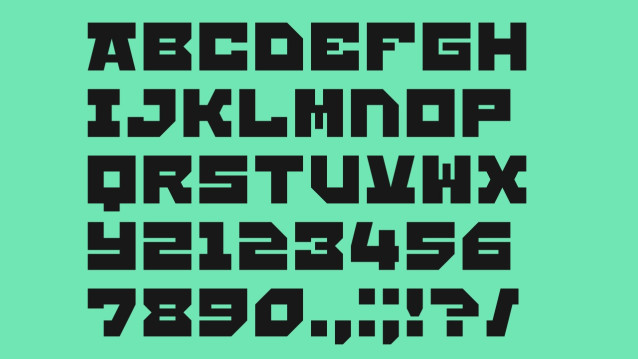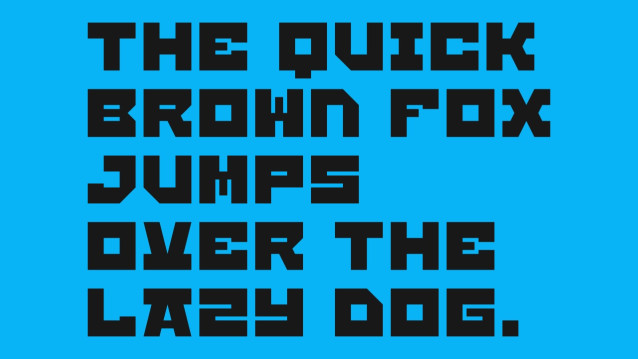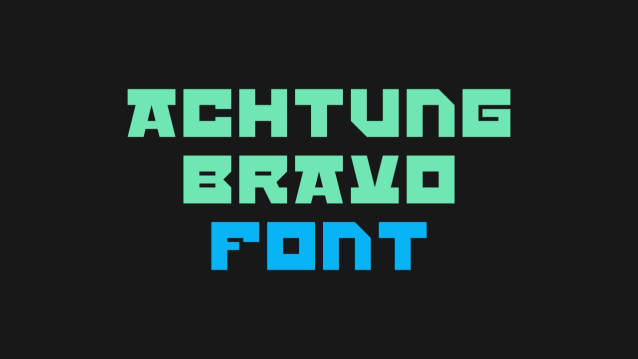
Achtung Bravo Font
Achtung Bravo Font a strong, confident and powerful typeface designed to suit sports logos, club branding, apparel applications, labels and more.